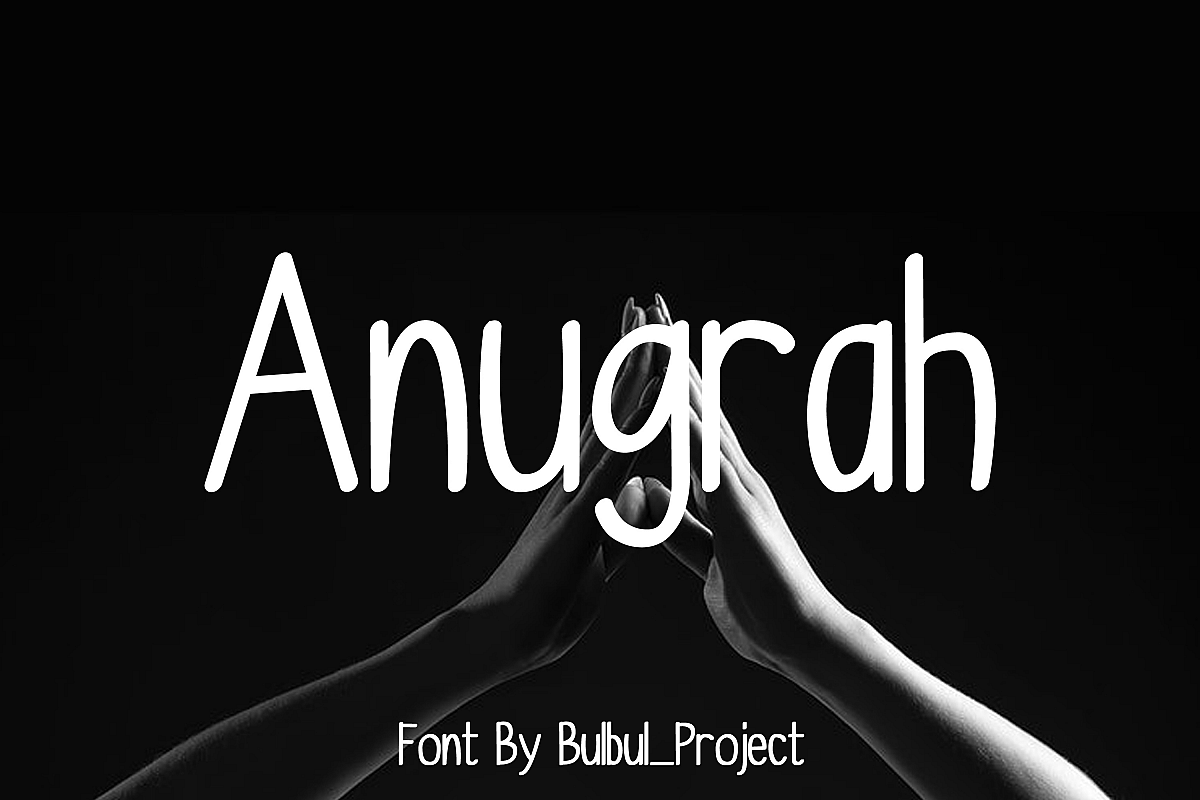
Anugrah
The Anugrah is a modern handwritten font. It has a stylish handwritten touch which is perfect for adding a natural and classy look to your designs.It’s perfect for many different project such as logos & branding, invitation, stationery, wedding designs, social media designs, and much more!